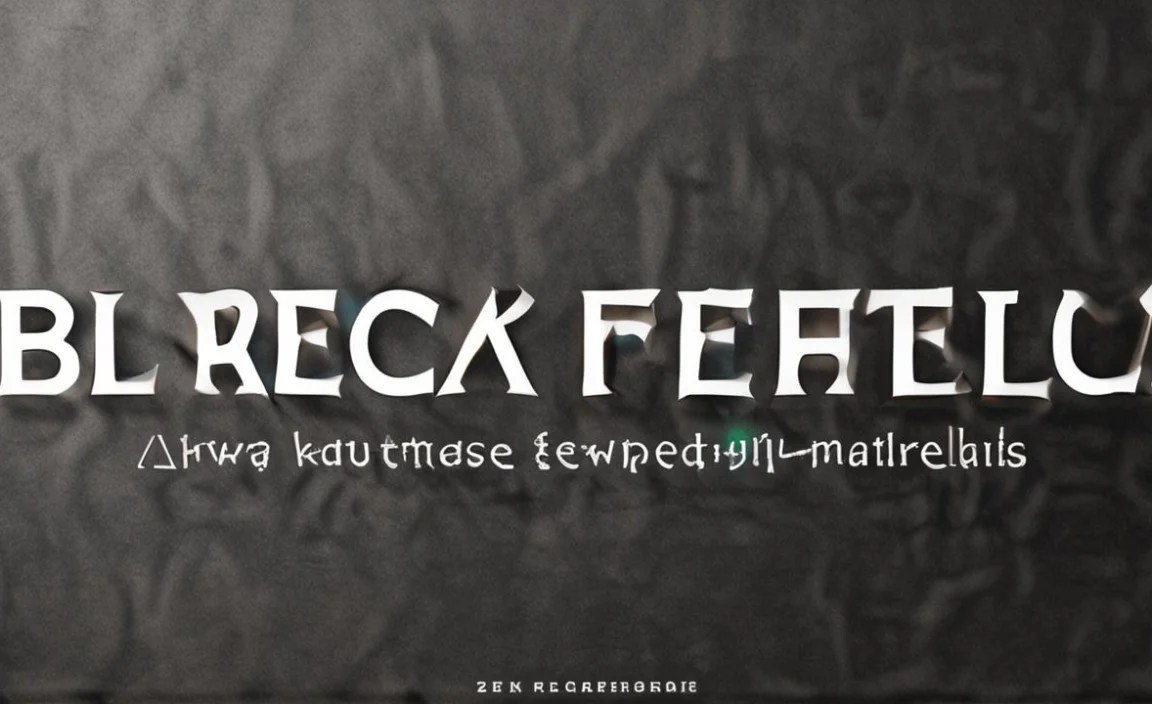
Black metal fonts have a dark, intense, and aggressive style. They align perfectly with the themes and imagery of extreme metal bands.
These fonts are ideal for designers working on album covers, metal band logos, merchandise, posters, and more. Featuring sharp edges, unique letter details, and bold textures, black metal fonts make a powerful statement in any design. In this guide, we will explore the top black metal fonts and how they can elevate your typography and branding projects.
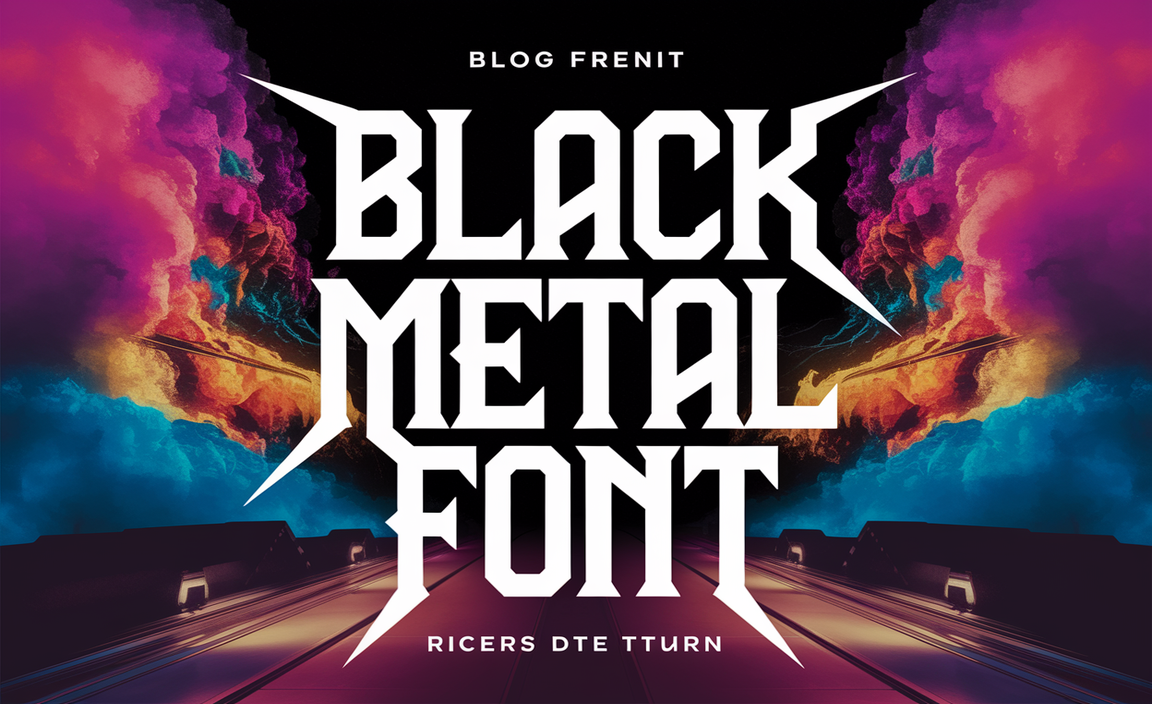
What Makes Black Metal Fonts Unique?
These fonts incorporate gothic font elements, sharp edges, and intricate details, reflecting the intensity of black metal music. Whether you are designing a metal band logo, album cover, or poster, these fonts bring a sense of darkness and extreme metal flair to any project.
- Sharp Edges & Dark Imagery
Black metal fonts often feature sharp edges and jagged letterforms, creating a bold, almost chaotic design. This style complements the themes of rebellion, darkness, and aggression that are central to black metal music. - Incorporating Gothic & Blackletter Fonts
Many black metal fonts draw inspiration from gothic fonts and blackletter fonts, which have a long history in typography. These typefaces evoke medieval and retro styles, adding a vintage touch to modern designs. The combination of sharp angles and ornate curves results in a powerful, unique text style.
Top Black Metal Fonts for Bold Designs
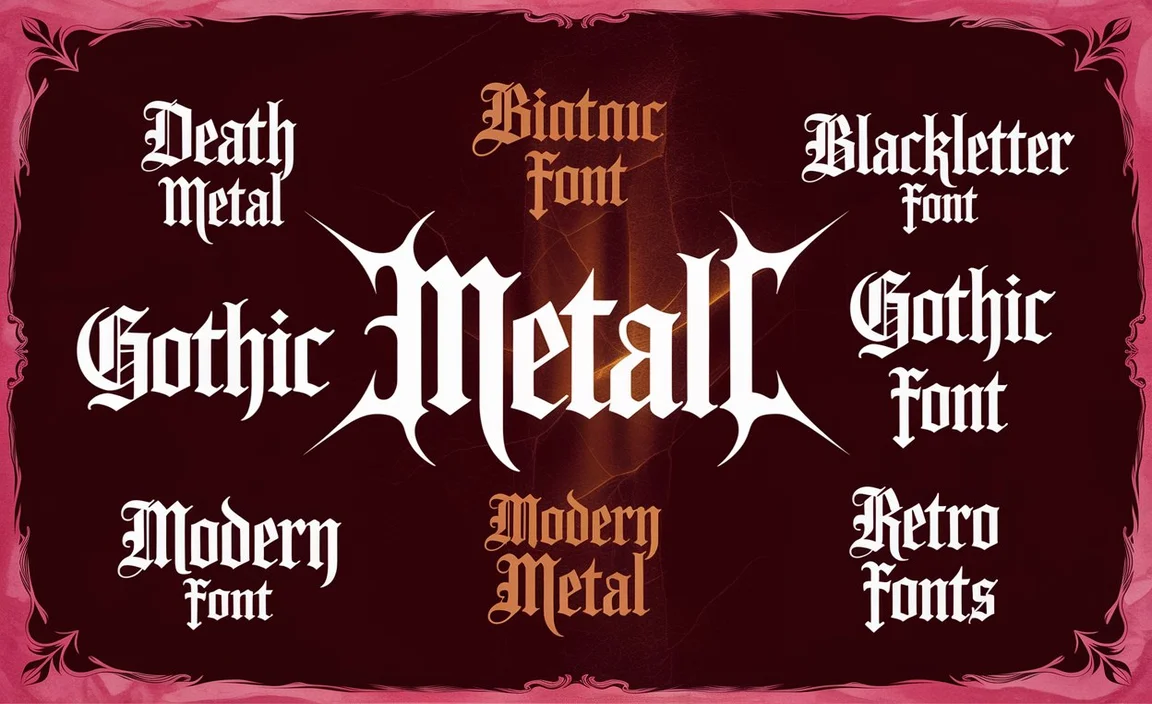
Death Metal Font
The death metal font is a popular choice for extreme metal bands. This font is typically characterized by sharp lines, distorted letterforms, and an overall chaotic look. It embodies the brutal intensity of death metal music while maintaining the intricate detail that defines metal typography.
Blackletter Font
Blackletter fonts are often used in the design of album covers, book covers, and posters for metal bands. Their bold, pointed letters create a strong visual impact. This vintage font has roots in medieval script, giving it an old-world feel that still resonates with modern metal designs.
Gothic Font
Gothic fonts are synonymous with the dark, eerie atmosphere that surrounds black metal. These fonts often feature dramatic flourishes, sharp corners, and letterforms that resemble ancient script. The gothic font style is perfect for conveying a sense of mystery, darkness, and aggression in designs.
Script Font for Metal
While script fonts are usually associated with elegance and calligraphy, their use in metal design can add an unexpected, contrasting touch. Metal designers often choose handwritten fonts for a more personal, raw approach. Script fonts with sharp, aggressive curves can add both elegance and intensity to the design.
Modern Metal Font
Modern fonts used in metal design maintain the sharpness and edge but with cleaner, more refined lines. These fonts are often used in metal band logos and promotional designs where a modern aesthetic is needed. Modern fonts give a sleek, professional look while still retaining the aggressive tone of metal.
Retro Fonts
Retro fonts draw inspiration from past decades, often reflecting vintage imagery and themes. These fonts are popular for metal albums that want to evoke a sense of nostalgia while maintaining a dark, edgy feel. Retro fonts can be used on merchandise, album covers, and packaging to add depth and personality.
Vintage Fonts for Metal Design
Vintage fonts in metal design typically incorporate distressed textures and rough edges, giving the text a worn, aged look. These fonts are perfect for conveying the intensity and character of metal music. Whether it’s a logo, poster, or album cover, vintage fonts add a timeless feel that blends well with black metal themes.
How to Choose the Right Black Metal Font
Choosing the right black metal font depends on several factors, including the themes of your project, the intensity of the design, and the message you wish to convey. Here are some things to consider:
- Brand Identity
If you’re designing a logo or brand identity for a metal band or clothing line, consider how the font will align with your branding goals. Fonts like gothic and blackletter can communicate a sense of tradition and dark elegance, while sharper, more chaotic fonts express raw intensity and rebellion. - Project Type
Different metal fonts work better for different types of projects. For album covers or poster designs, you might prefer a death metal font or a blackletter font with strong letterforms and texture. For social media graphics or website design, a more modern or sans version of the font might be a better fit for readability and style. - Commercial Use
Are There Any Modern Black Metal Fonts?
Yes, modern black metal fonts offer a cleaner style with the sharp edges and dark themes typical of black metal designs.
Where Can I Use Black Metal Fonts?
Black metal fonts are ideal for album covers, band logos, merchandise, posters, and other branding or design projects.
What Makes Black Metal Fonts Unique?
Black metal fonts stand out due to their sharp edges, intricate letter details, and strong themes of darkness and intensity.